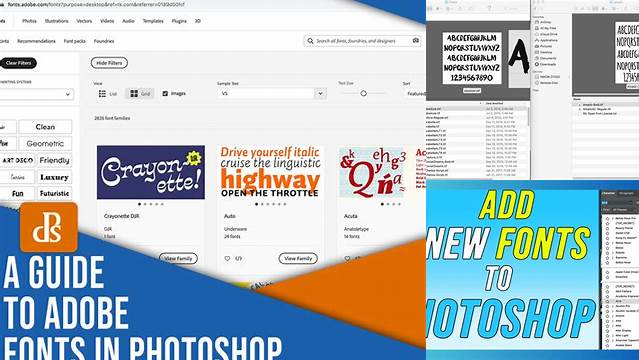
Get Photoshop 7.0 Fonts Free: A Complete Guide
Hey everyone! If you're still rocking Adobe Photoshop 7.0 (and hey, no judgment – that classic is still super capable!), you might be on the hunt for some fresh fonts to spice up your designs. Finding photoshop 7.0 fonts free download options can seem a bit tricky in today's world, but don't worry, I'm here to guide you. This article is your ultimate resource for everything font-related in Photoshop 7.0. We'll cover where to find those sweet, sweet fonts, how to install them, and even some cool tips and tricks to make your designs pop. Get ready to level up your Photoshop game!
Free Photoshop 7.0 Fonts: Top Picks for Designers
Finding the best free Photoshop 7.0 fonts depends entirely on your design style and project needs. Here are a few recommendations to get you started. First, for a classic and timeless look, consider using a sans-serif font such as Arial or Helvetica. These fonts are clean, versatile, and readable. They work well for various design projects. For a more modern and elegant feel, try a sans-serif font like Open Sans or Lato. They have a contemporary design that makes them a great choice for a wide range of design projects. If you want a bit more flair, opt for a script font. Options like Pacifico or Lobster offer a more handwritten look, perfect for headings, logos, or special text effects. For projects that require a bolder approach, consider a slab serif font. Rockwell or Museo Slab are good choices. These fonts command attention and are often used for headlines and impactful designs. Don't forget about display fonts. These are more decorative and are designed to make a statement. The design choices will vary depending on your style. When selecting a font, consider readability. The best font is one that is easy to read, no matter the size. Consider the font's style. Does it match the tone and style of your project? Is it the right font to convey the intended message? Make sure that your chosen font is licensed for the intended use. Always read the license agreement to determine if the font is appropriate for your use.
Font Combinations and Design Tips
Photoshop 7.0 fonts can be combined to create stunning designs. Here are some tips and tricks. Using complementary fonts is a simple and effective approach. Pair a sans-serif font with a serif font to create visual contrast. Use different font weights to create depth and visual interest. Use a heavier font for headlines and a lighter font for body text. Limit the number of fonts you use in a single design. Too many fonts can make your design look messy and unprofessional. 2-3 fonts are often a good number to use. You can use various font sizes and styles to create a visual hierarchy. For example, you can use a larger font for headlines and a smaller font for subheadings. Consider using negative space to enhance your design. The negative space can help to create a clean and uncluttered look. Experiment with different font effects, such as shadows, outlines, and gradients. These effects can help to add visual interest to your design. Pay attention to kerning and leading. Kerning refers to the spacing between individual letters, while leading refers to the spacing between lines of text. It can help to ensure that your text looks balanced and readable. Before finalizing your design, always proofread your text. Make sure that the text is free of errors. To create a professional-looking design, experiment with different font combinations and design techniques.
Photoshop 7.0 Font Compatibility: What You Need to Know
Not all fonts play nice with Photoshop 7.0. Here's what you need to know about Photoshop 7.0 font compatibility. As we've mentioned, the most reliable formats are TrueType (.ttf) and OpenType (.otf). While Photoshop 7.0 may recognize some older font formats, the .ttf and .otf ones are generally your safest bet. Keep an eye out for any font-related issues within the program. If you experience any unexpected font behavior, like missing characters or rendering problems, it could be a compatibility issue. It's possible some modern font features might not be supported by Photoshop 7.0. This could affect the way special characters, ligatures, or stylistic sets are displayed. If you are having trouble with a particular font, you may try an alternative similar font with better compatibility. Before using a font, test it in a sample document to ensure it works as expected. Try typing different characters, applying various styles (bold, italic), and checking its performance at different sizes. Be sure that your operating system is up to date. Though not directly related to the font itself, an outdated OS could potentially lead to compatibility problems or issues when it comes to font rendering. Avoid fonts that are very large in file size. They might cause performance problems or slow down Photoshop 7.0. Stick to well-designed fonts with a reasonable size. Always consider the design of the fonts. Some fonts are specifically designed to work with older versions of software. So, if you are using an older version, choose fonts that were designed with backward compatibility in mind.
Handling Font Conflicts and Errors
Sometimes, font installation can be a bit rocky. Here's how to handle Photoshop 7.0 font conflicts and errors. If you notice that a newly installed font replaces an existing font, this could be a conflict. Check to see if the conflicting fonts have the same name or the same file structure. If there's a conflict, you can remove the older version of the font to ensure that your new font works correctly. Consider renaming your fonts to avoid possible font clashes. Renaming the font file before installation can also mitigate conflicts. If you have a font that doesn't display correctly, check its file integrity. If the file has been corrupted during download, it won't display correctly. Redownload the file and try again. Run the font validation tool to identify the errors and repair them, or delete them if they cannot be fixed. Make sure that all required font files are installed. Some font families require multiple files. Missing files will affect the font's functionality. Another approach is to temporarily disable certain fonts to diagnose conflicts. To do this, you can move the font files to a temporary folder. If the font works, you can then move the font files back into the original font location. Then, try restarting Photoshop 7.0. If you see any error messages related to fonts, carefully read the messages. These messages can provide valuable clues about the problem. Check the system logs to find more information. If you're still stuck, consider seeking help from online forums or tutorials. Provide details about the font you're using, the error you're encountering, and any troubleshooting steps you've already tried.
Alternative Solutions for Fonts in Photoshop 7.0
Where to Find More Font Resources
If you're hungry for more photoshop 7.0 fonts, here are some additional resources. You can find tutorials online. Look at websites and blogs for specific information about fonts and Photoshop 7.0. Check out design communities. Join online forums or communities. Network with other designers for recommendations. Sign up for newsletters. Many websites have newsletters. Join a newsletter for new fonts. Follow design blogs. Keep up with the latest trends. Always check the licenses. Be sure to understand the terms of use.